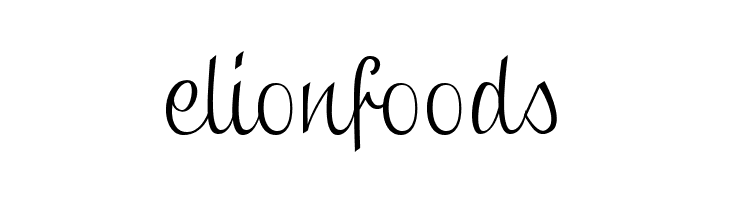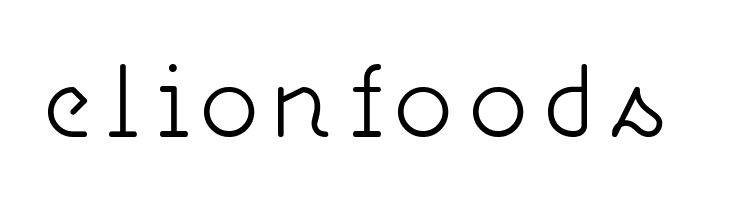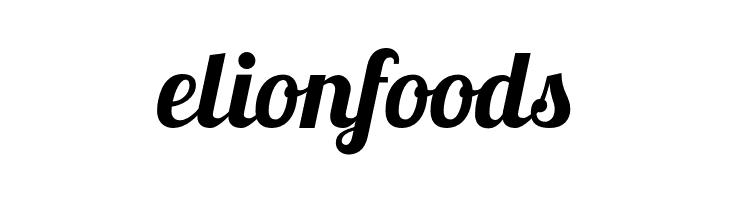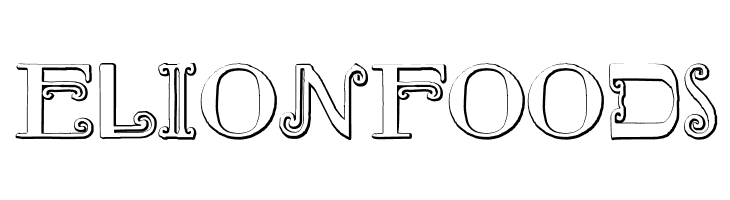
( Fonts by Otto Maurer Design )
A decorative, bold font with a twisted, shadowed design ideal for dramatic displays.
( Paul Lloyd Fonts )
A classic, high-contrast serif font with a modern twist.
( Fonts by Mans Greback - www.mawns.com )
A playful and elegant script font with a modern twist.
A bold, italicized font with a modern twist on traditional blackletter styles.
A bold, angular blackletter font with a modern twist.
( Fonts by weknow - Wino S Kadir )
An exotic, decorative font with intricate, bold strokes and a modern twist.
( Fonts by www.smeltery.net )
A playful and quirky font with unique twists and modern flair.
( Fonts by www.impallari.com )
A bold, flowing script font with elegant curves and a modern twist.
A bold, angular font inspired by ancient runic alphabets with a modern twist.